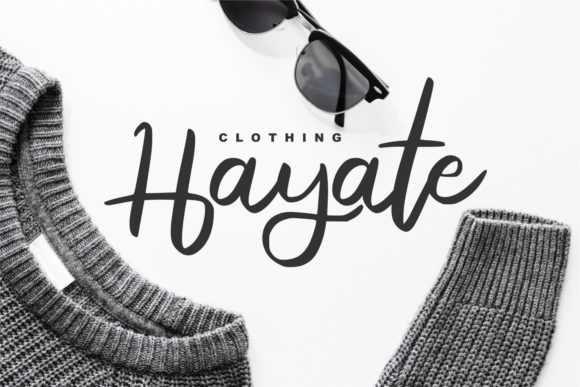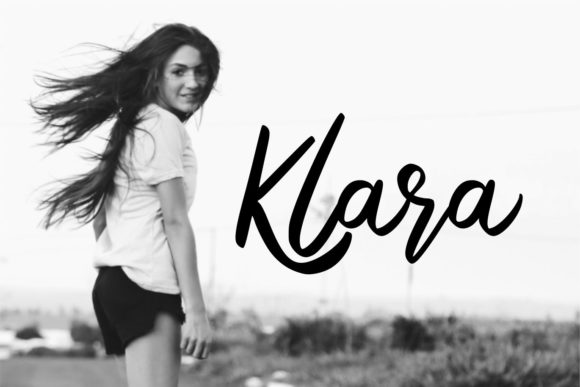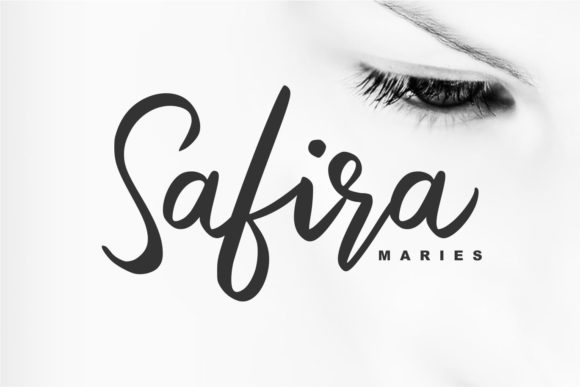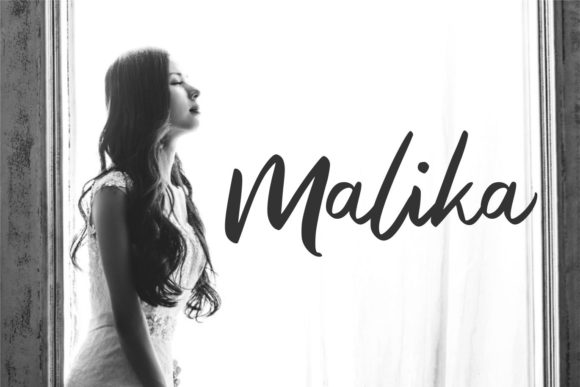
Enigma Font
Enigma is a stunning and vibrant handwritten font featuring incredibly lovely swashes. Use it to turn any design idea into a true standout!